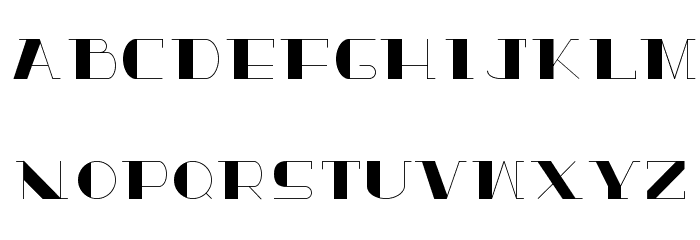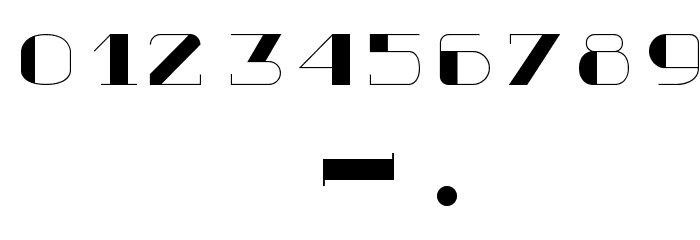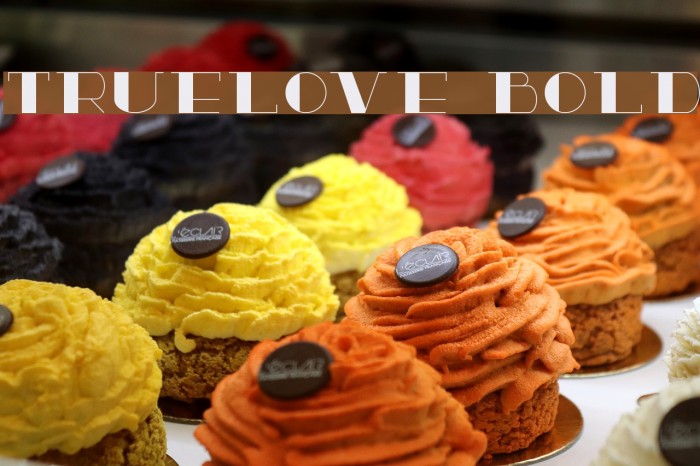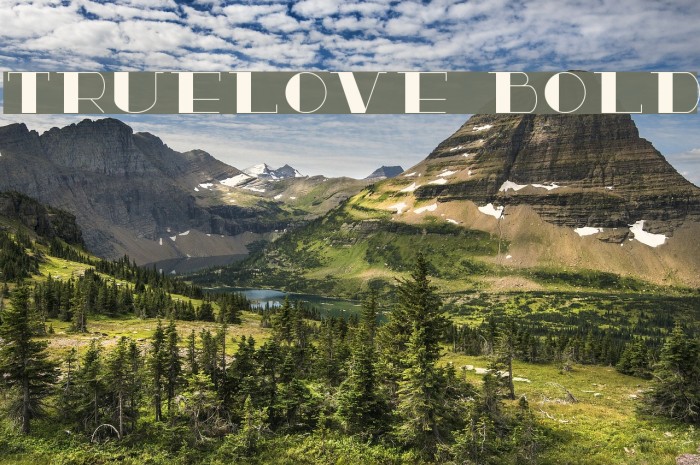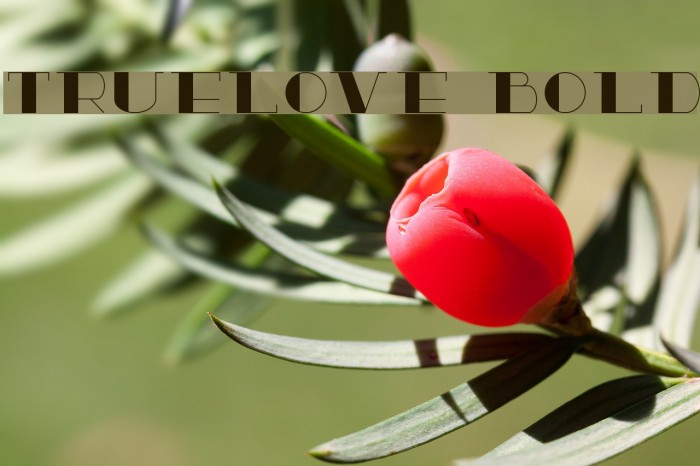
TrueLove Bold Font
This font features a bold and striking design with a modern twist. Each character is crafted with a unique blend of thick and thin strokes, creating a high contrast that draws attention. The uppercase letters exhibit a geometric style with sharp angles and clean lines, while the lowercase letters maintain a consistent aesthetic. Numbers and special characters are designed to complement the overall look, ensuring a cohesive appearance across all text. The font's distinctive style makes it ideal for projects that require a contemporary and eye-catching typeface.
A bold, high-contrast font with a modern geometric style.
- Proposed Projects: Ideal for branding, advertising, poster design, and any project requiring a modern, bold typeface.